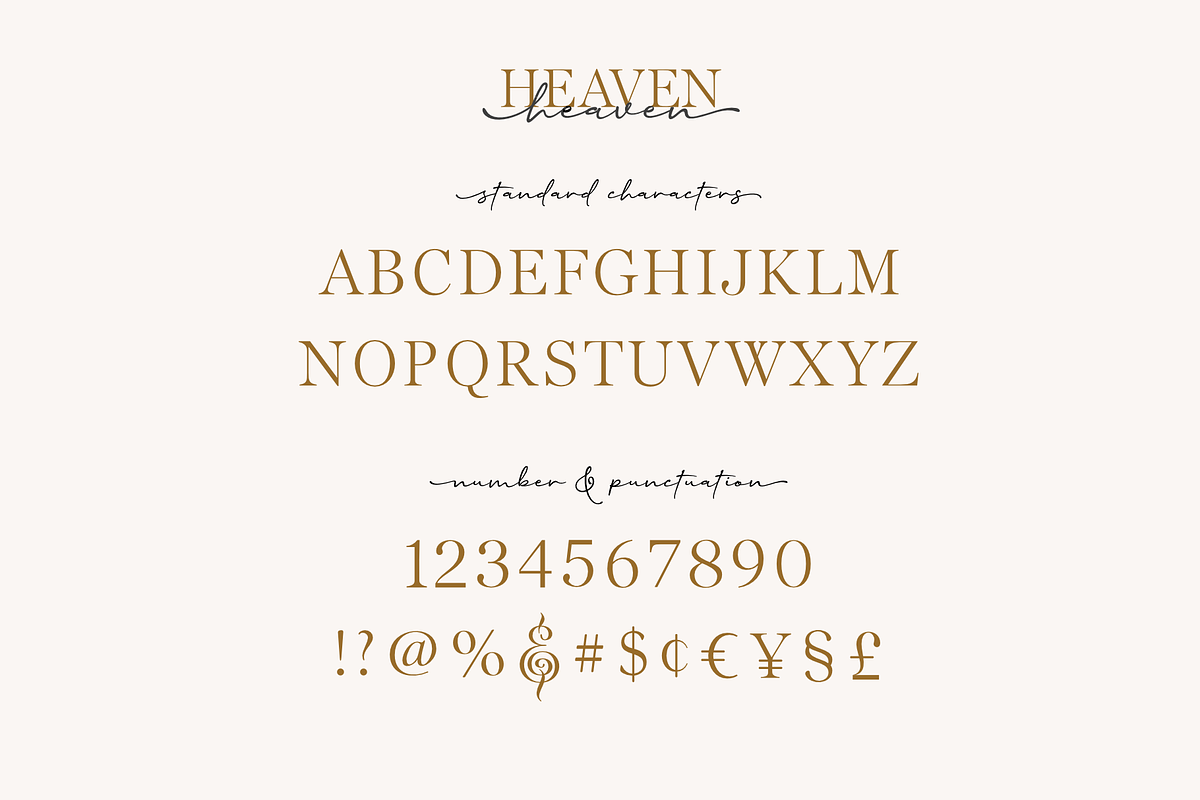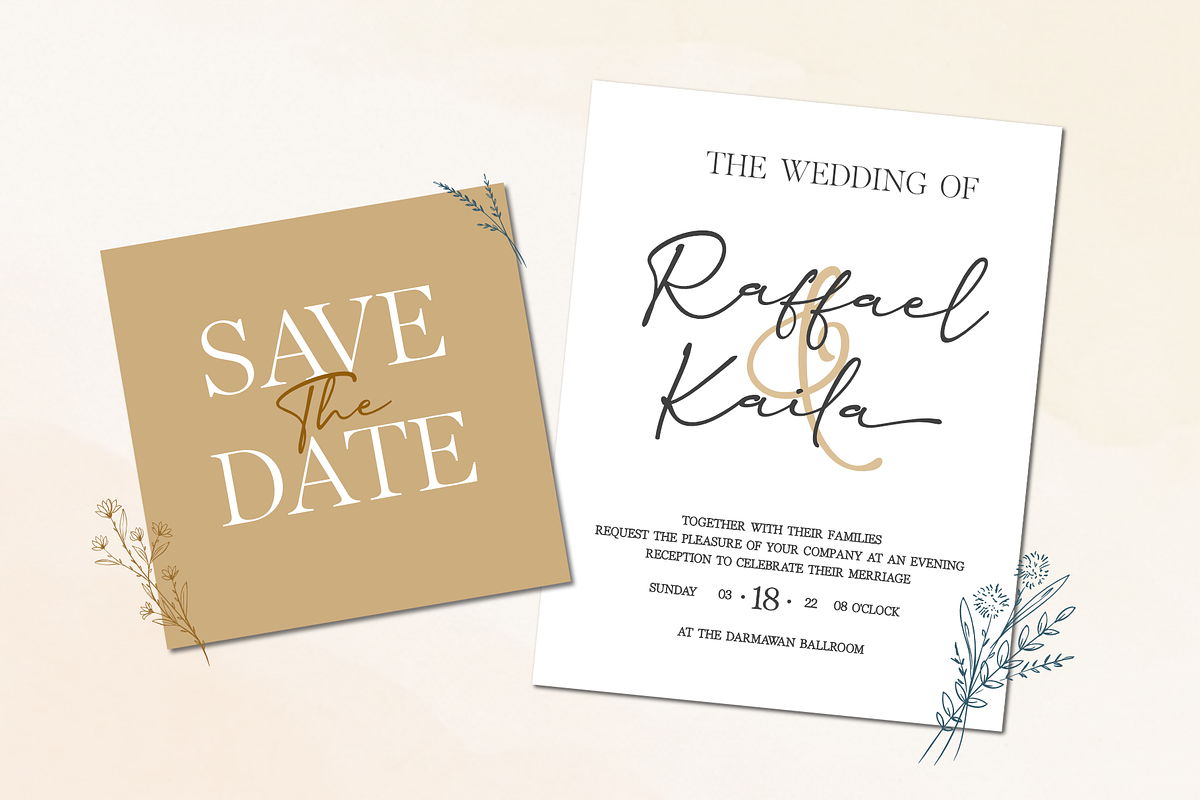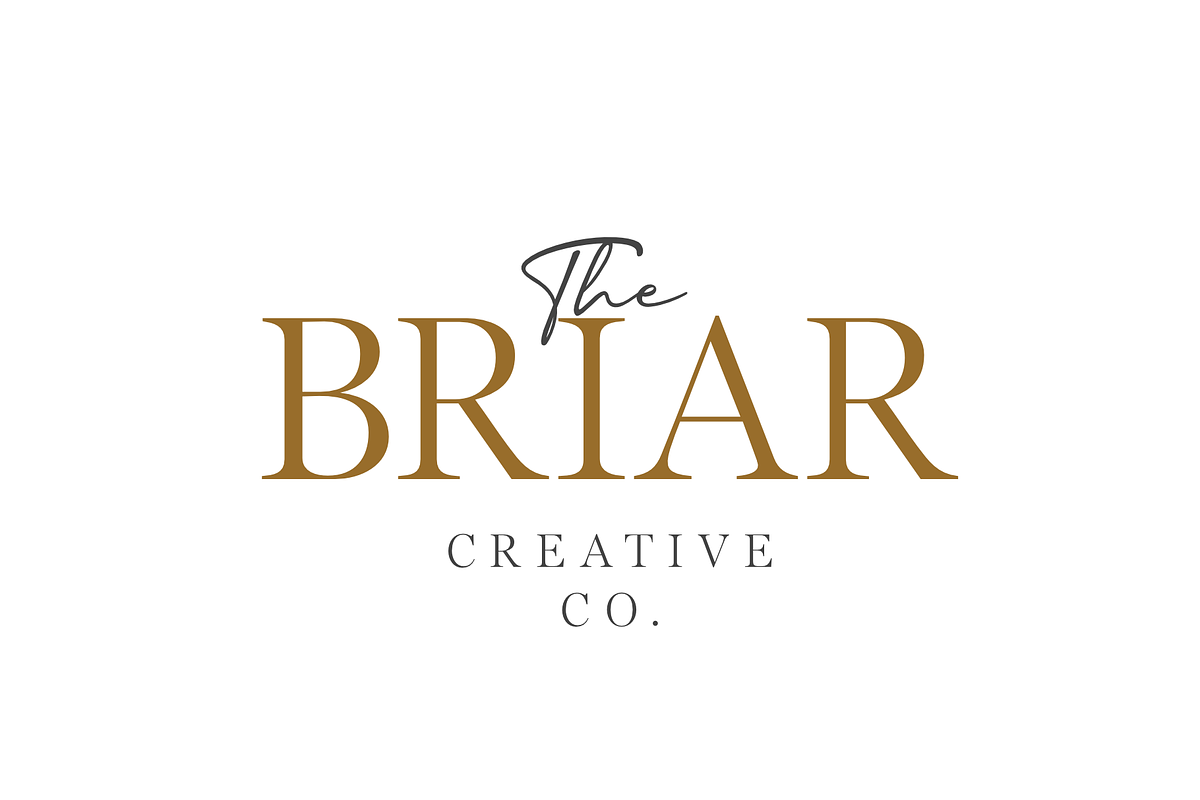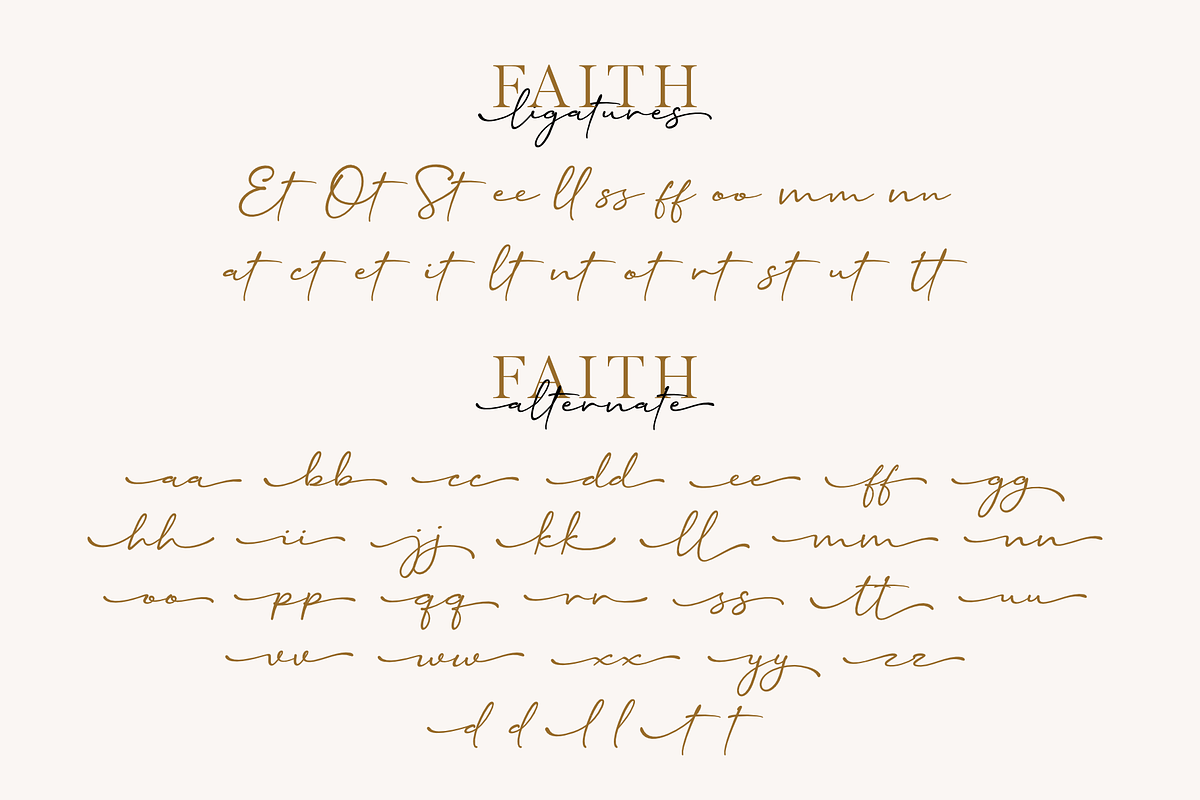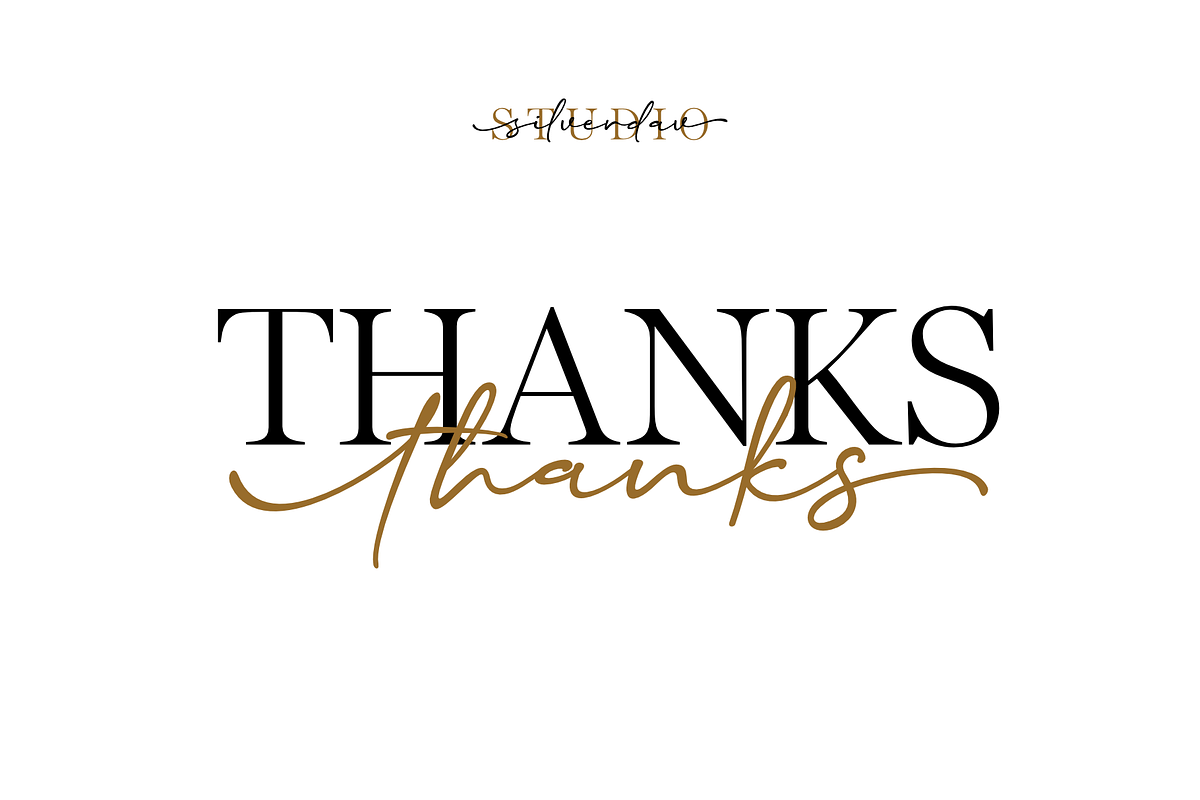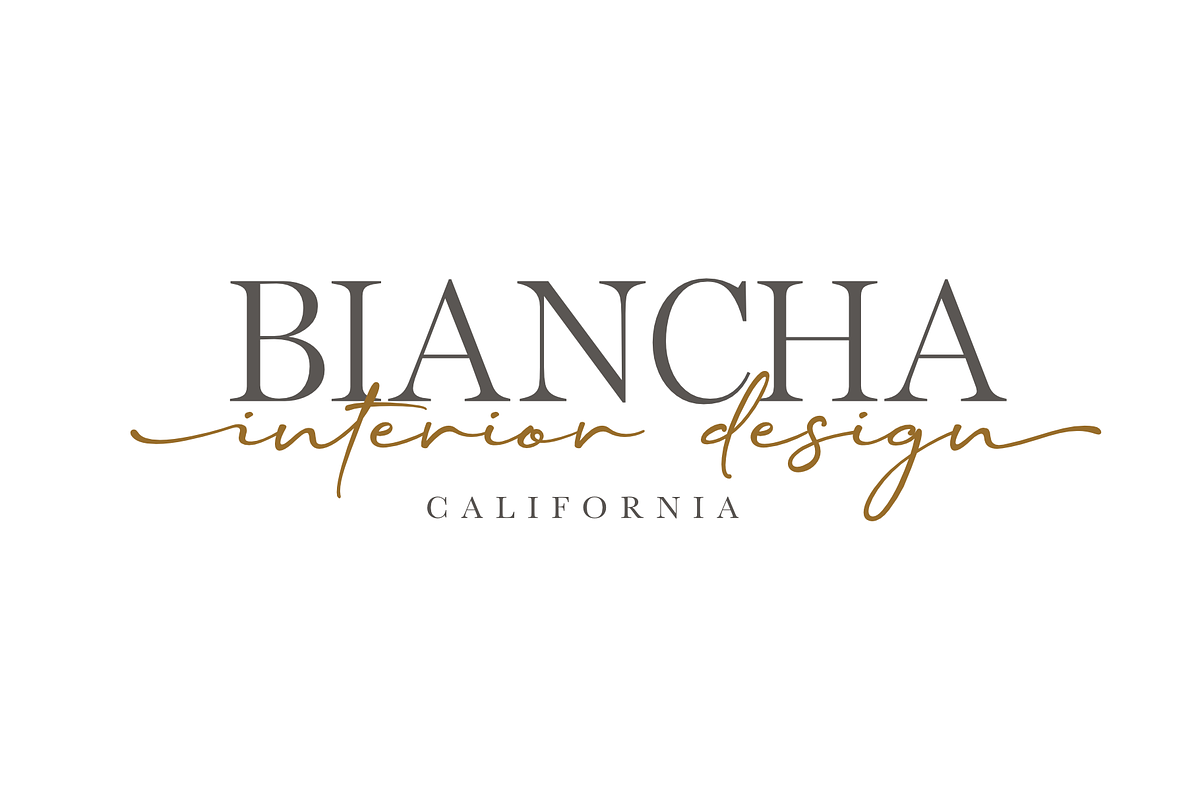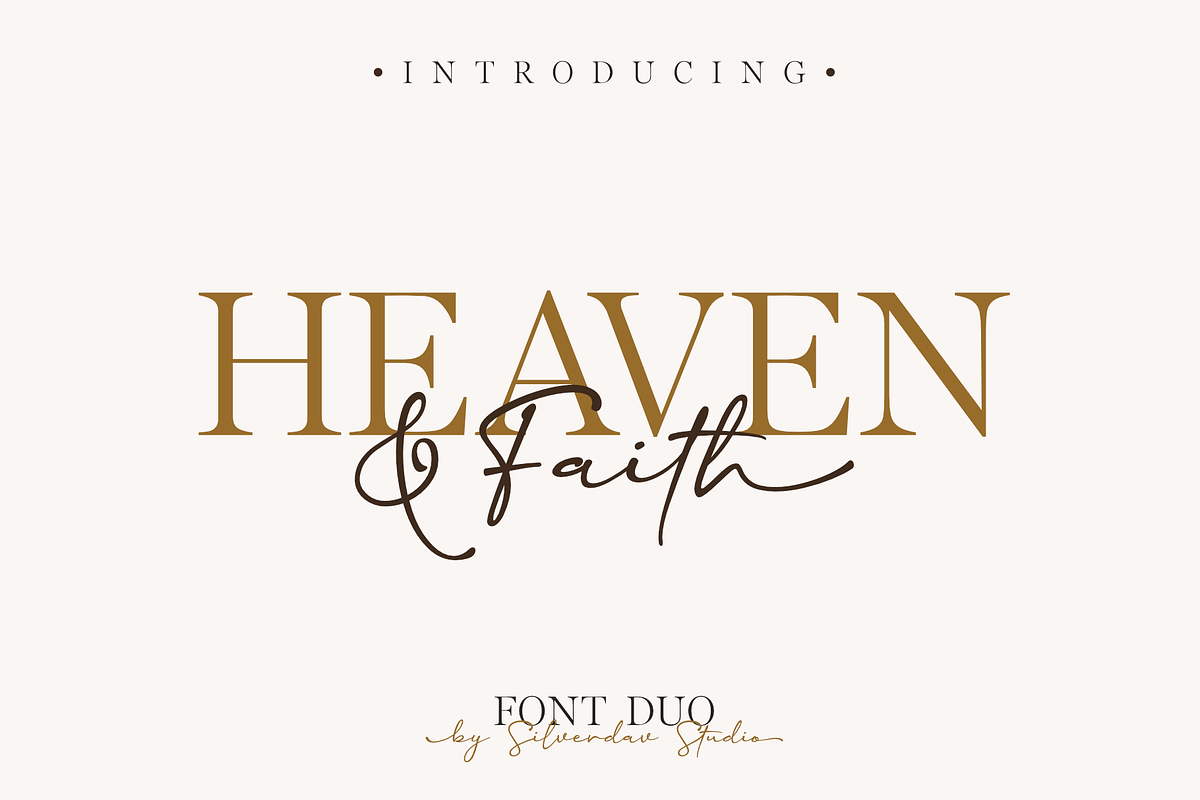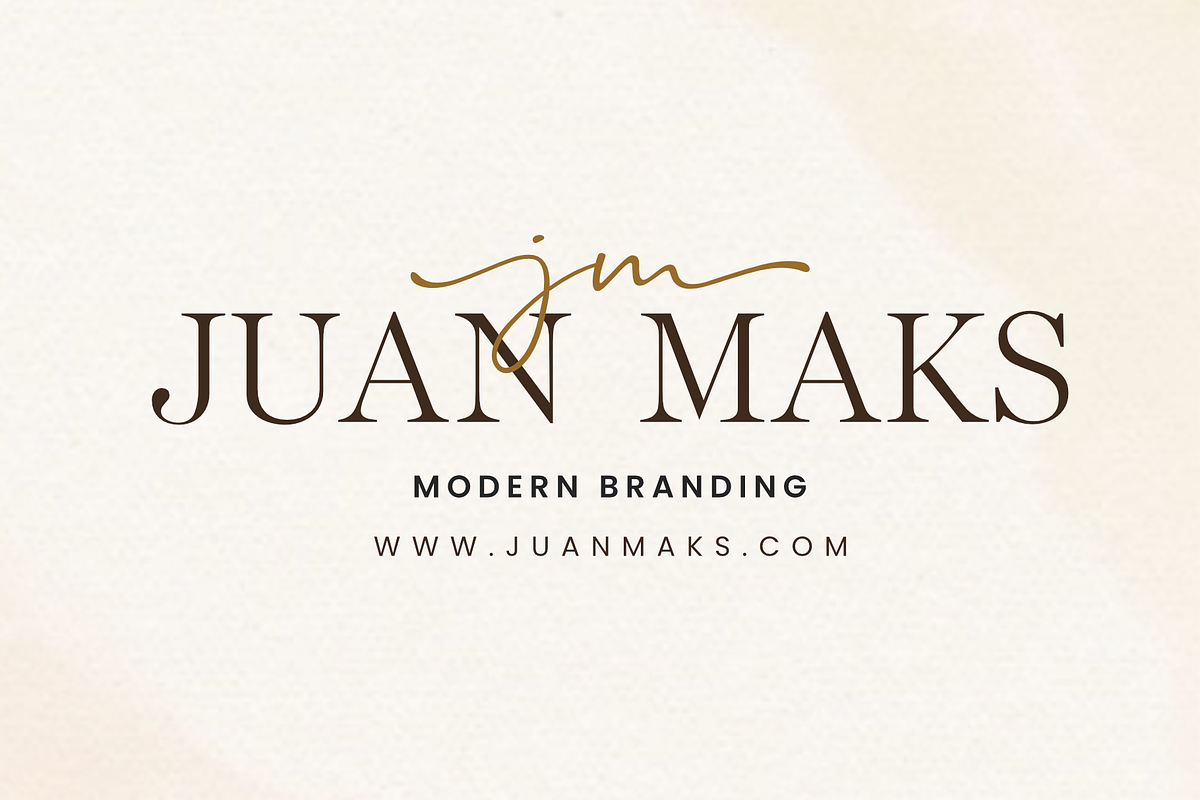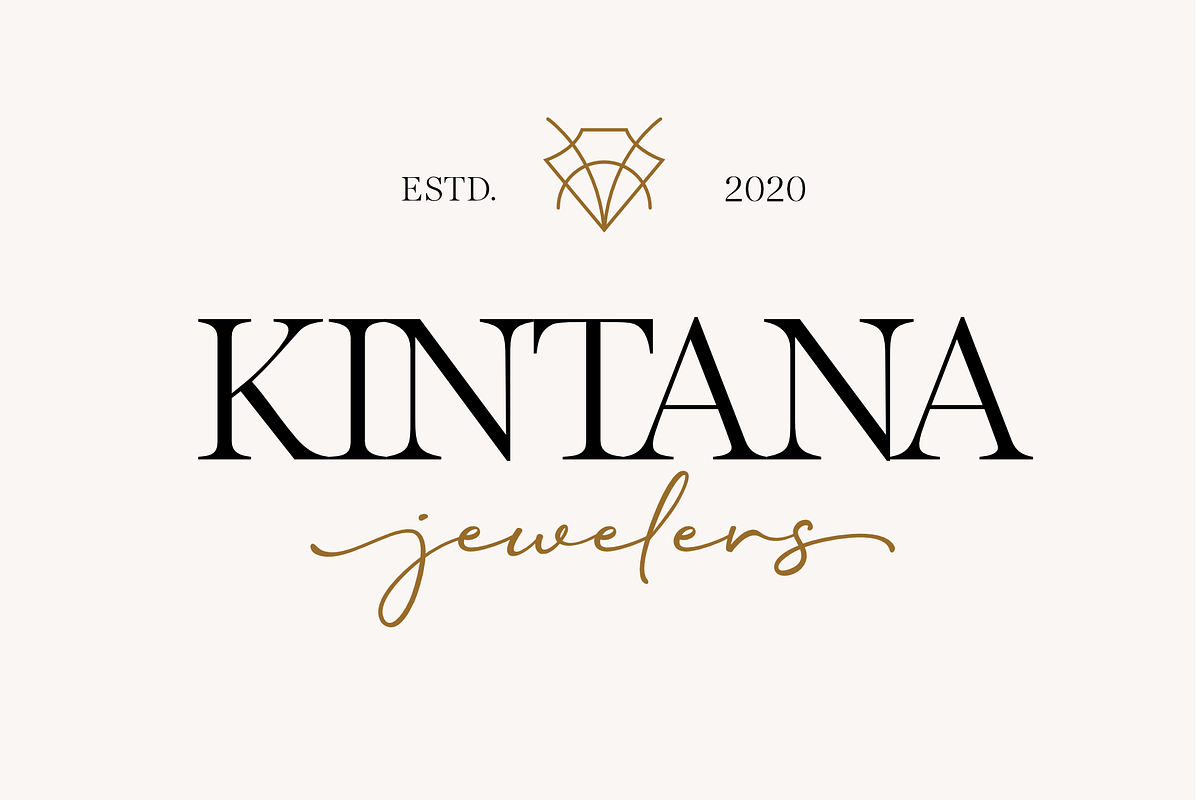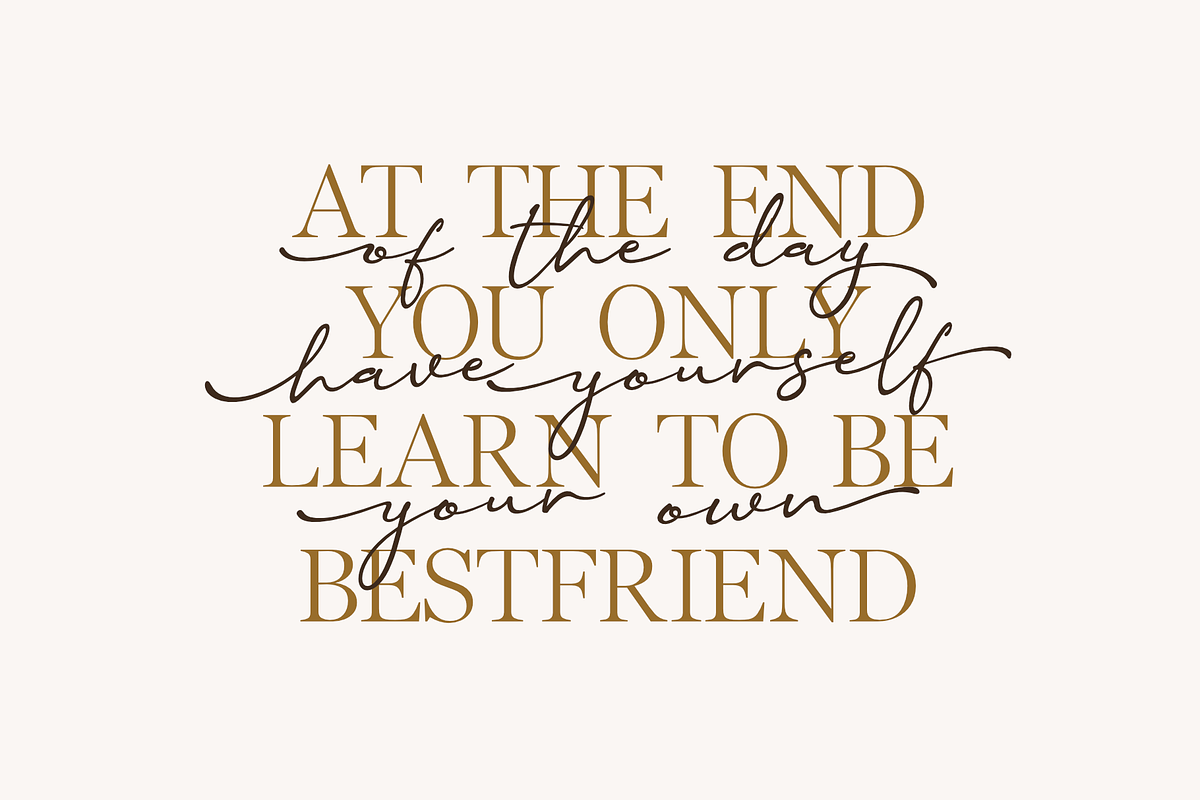
Heaven & Faith – Font Duo
Heaven & Faith is a font duo, consisting of script and serif, with a mix of script and serif fonts, it will certainly add a charming impression to your design,
This font has a tail in lowercase, both at the beginning and at the end, and several ligatures can be used to complete your design.
This font is suitable for magazines, logos, branding, ebooks, clothing, quotes, and more.